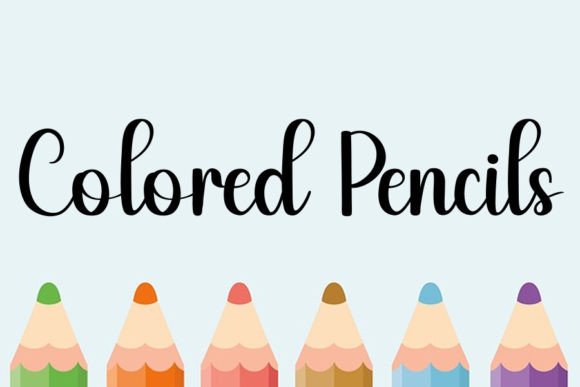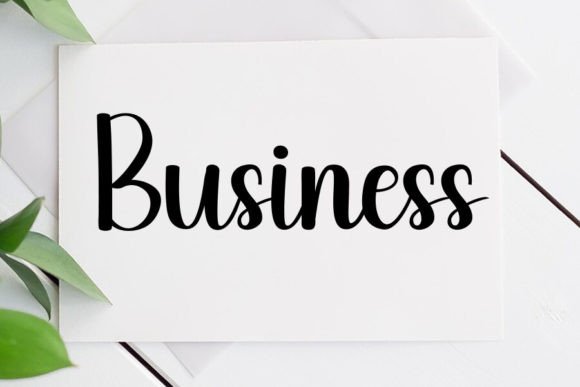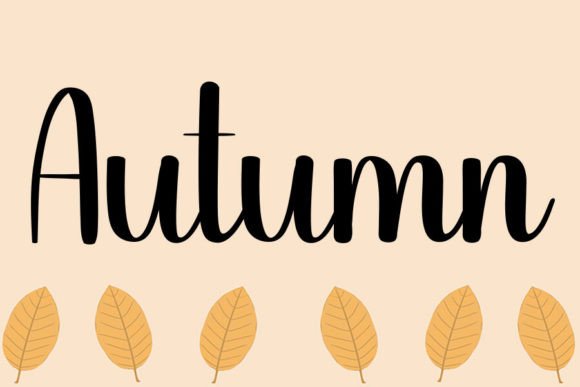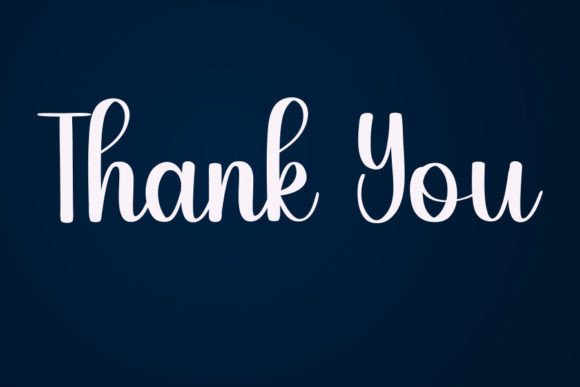
I’ll never forget the time I was working on a project for a client who wanted a fun, friendly font that captured the laid-back vibe of California. I spent hours scouring the internet for the perfect font, but nothing seemed quite right. That was until I stumbled upon California Font. It was love at first sight! ✨ In this article, I’ll share my experience with California Font, its features, and how to make the most of it in your creative projects.
An Honest Review of California Font
So, what makes California Font so special? Let’s dive into the good stuff and a few quirks I’ve discovered.
What I Love About California Font
- ✨ Friendly and approachable: California Font has a warm, inviting feel that’s perfect for greeting cards, presentations, and digital designs.
- ✅ Versatile: Whether you’re working on a craft project, creating social media graphics, or designing a presentation, California Font adapts seamlessly.
- 💫 Highly legible: Even at smaller sizes, California Font remains clear and easy to read.
While California Font is amazing, there are a few things to keep in mind:
- 🤔 Limited formal applications: Due to its casual nature, California Font might not be the best choice for formal documents or professional reports.
- ⚠️ Occasional kerning issues: As with any font, you might encounter some kerning issues, especially with certain letter combinations.
- Experiment with OpenType features, such as ligatures and stylistic alternates, to add personality to your text.
- Explore the font’s glyphs and OpenType features to unlock its full creative potential.
- Use the font’s stylistic alternates to add visual interest to your text.
The Backstory of California Font
California Font was designed with the intention of capturing the carefree, sunny spirit of California. Its creator aimed to craft a font that would be both fun and functional, perfect for a wide range of creative projects. While the exact details of its creation are unclear, it’s evident that California Font has become a beloved choice among designers and crafters.
| Font Name | California Font |
| Author | salma studio |
Q: What type of projects is California Font best suited for?
A: California Font is versatile and can be used for various projects, including crafts, digital designs, presentations, and greeting cards.